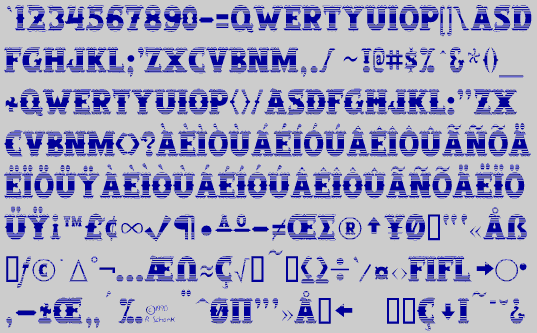
SalloonStripeEnds
The thick stems of Salloon make it an interesting font to decorate. In SallonStripeMiddle and SalloonStripeEnds various parts of the letters are striped, while other parts have no stripes.